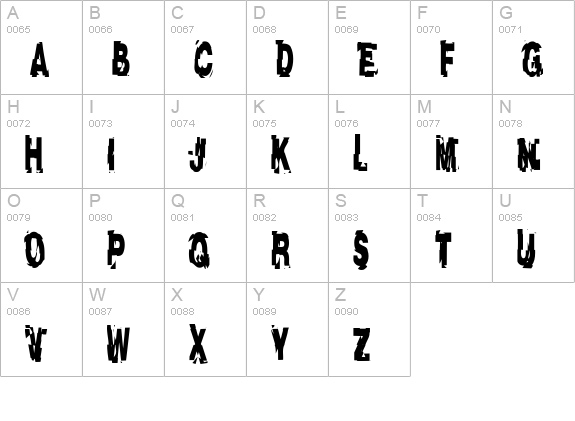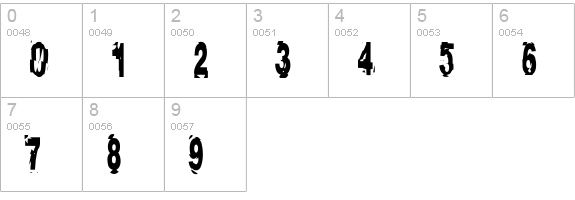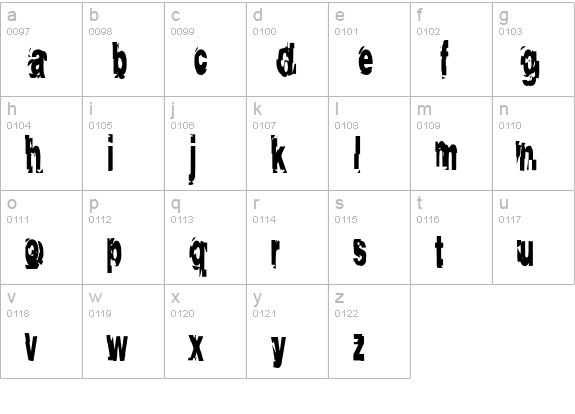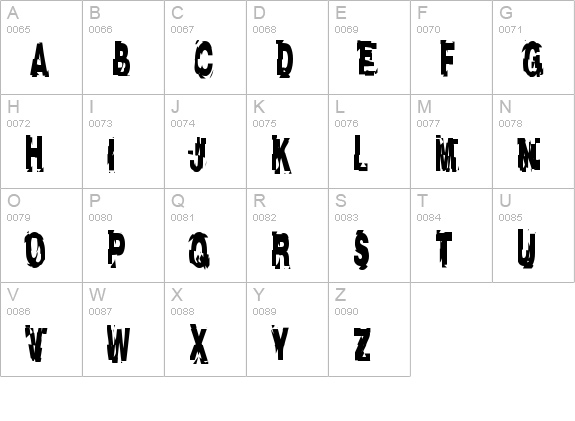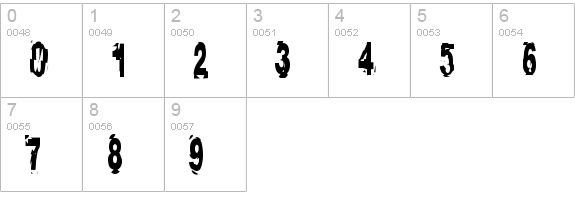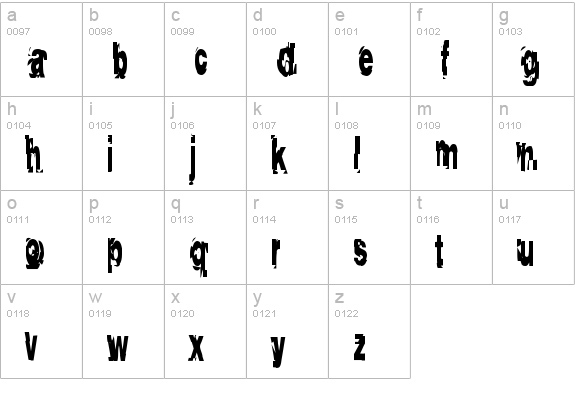
AfterShock font is a bold and dynamic typeface that exudes a sense of power and energy. With its sharp edges and modern design, this font is perfect for making a strong statement in your projects. Whether you are creating a poster, logo, or website, AfterShock font will definitely grab attention and leave a lasting impression. The best part about AfterShock font is that it is completely free to download at FontsMarket.com. You can easily access this striking font and use it in your designs without any cost. So go ahead and give your projects a powerful boost with AfterShock font today!